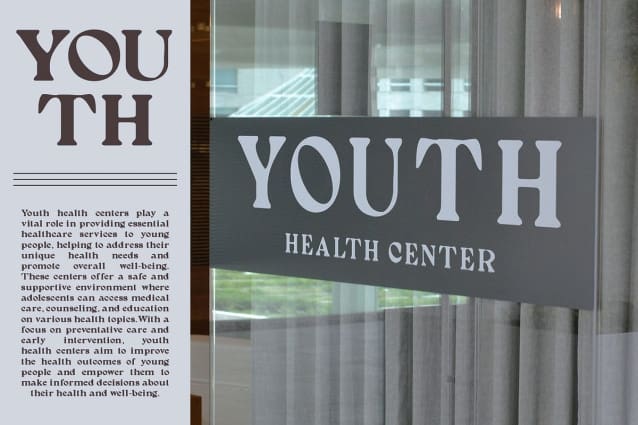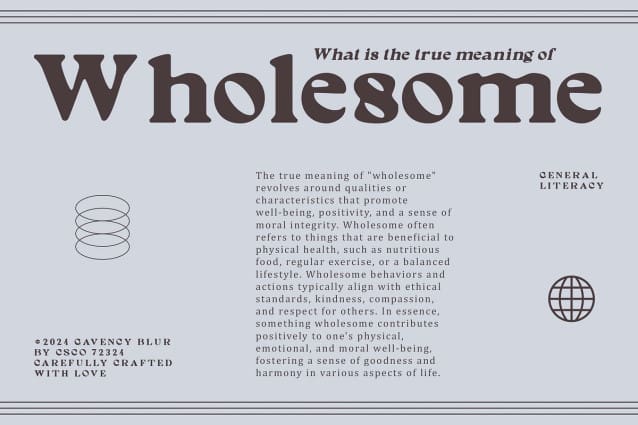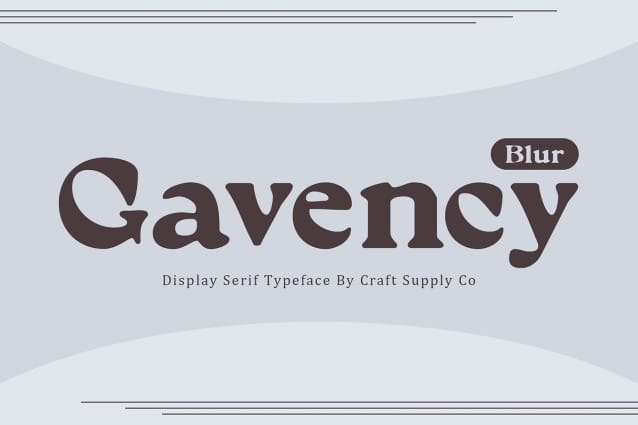
Gavency Blur Font
Gavency Blur Font is a display serif font that merges retro charm with modern flair. Its bold, vintage-inspired letterforms evoke a nostalgic vibe, while the sophisticated blur effect adds a contemporary, ethereal touch.
Nostalgic Letterforms with Modern Blur The font’s classic, vintage-inspired design creates a strong, nostalgic impression, while the subtle blur effect introduces a dynamic, modern element. This combination of retro and contemporary styles delivers a unique visual experience that captivates and engages.
Dynamic Visual Experience for Impactful Designs Gavency Blur is ideal for enhancing headlines, posters, and branding materials. The blend of bold, retro letterforms with a soft blur creates a distinctive, stylish look that elevates any project with a unique retro-modern aesthetic.
Perfect for Unique and Eye-Catching Projects Whether for vintage-themed designs or modern branding efforts, Gavency Blur provides a perfect fusion of classic and contemporary elements. Its dynamic style ensures that your projects stand out with a sophisticated, yet nostalgic, flair.